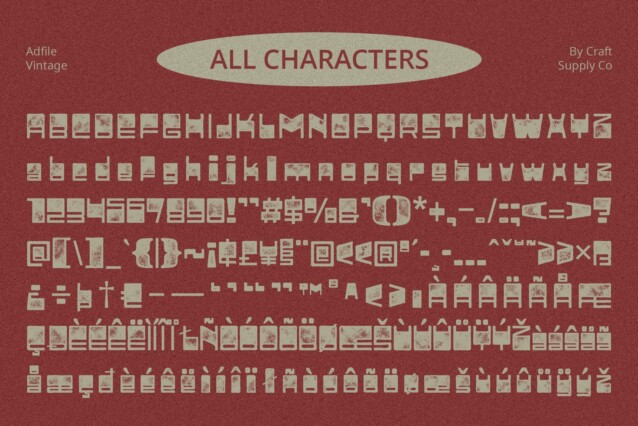
Adfile Vintage Font
Adfile Vintage Font is a bold sans serif reverse contrast design, adding a unique twist to traditional fonts. Its unconventional layout makes it stand out from the crowd.
Funky Vibes With its funky vibes, This font exudes a sense of playfulness and creativity. Its unconventional style is perfect for projects that need a touch of eccentricity and flair.